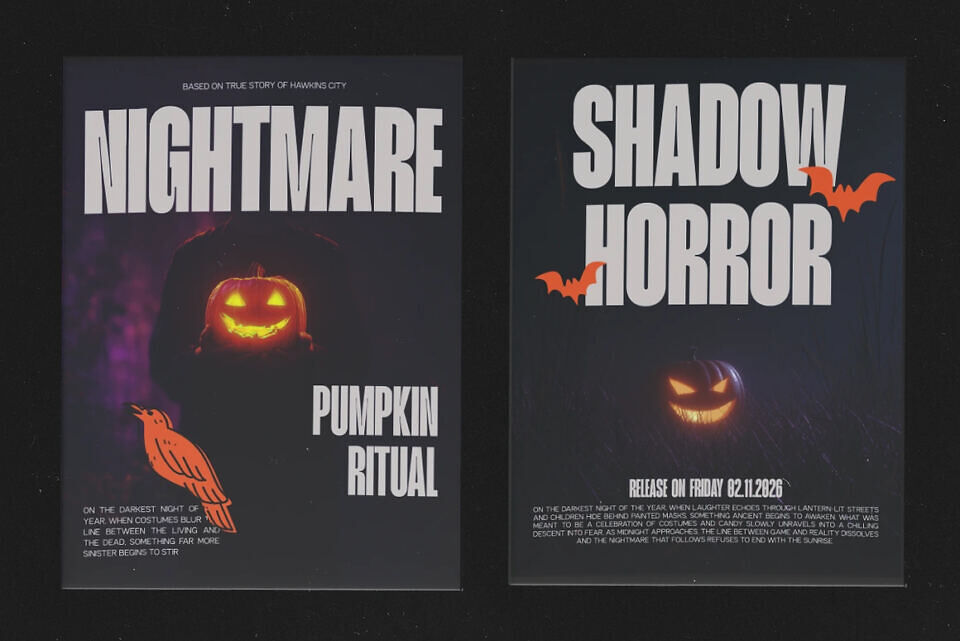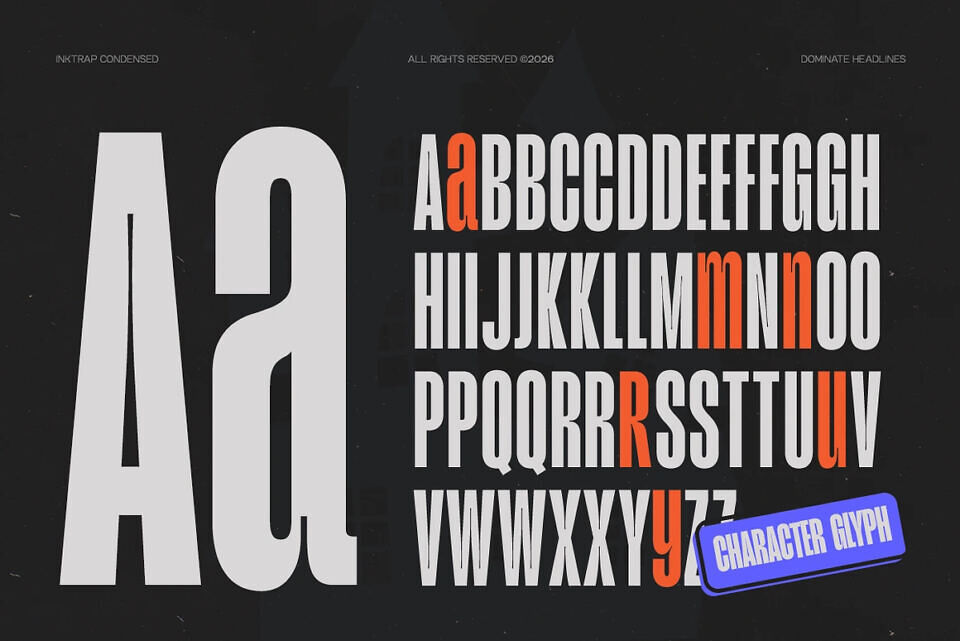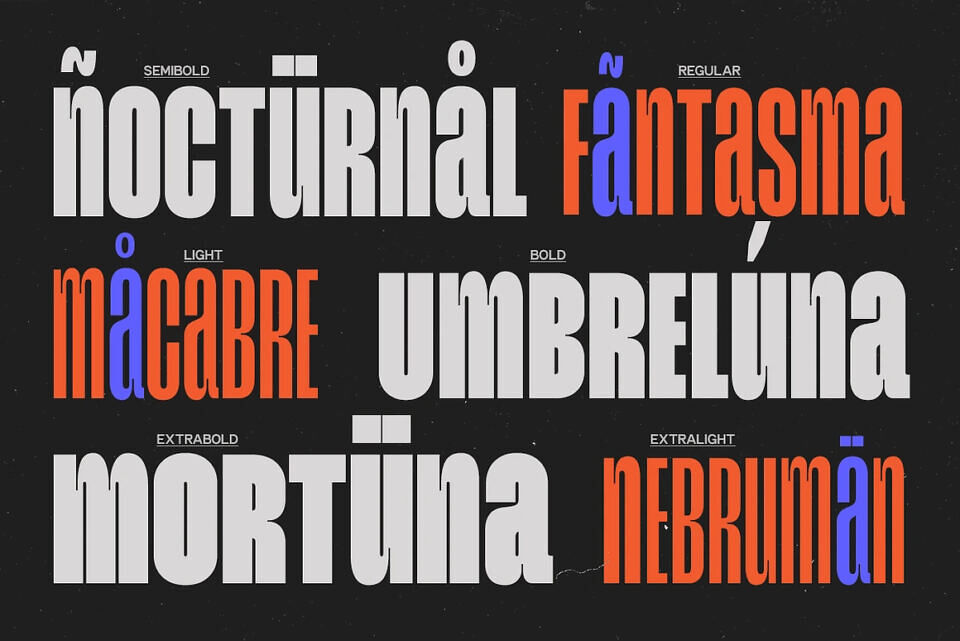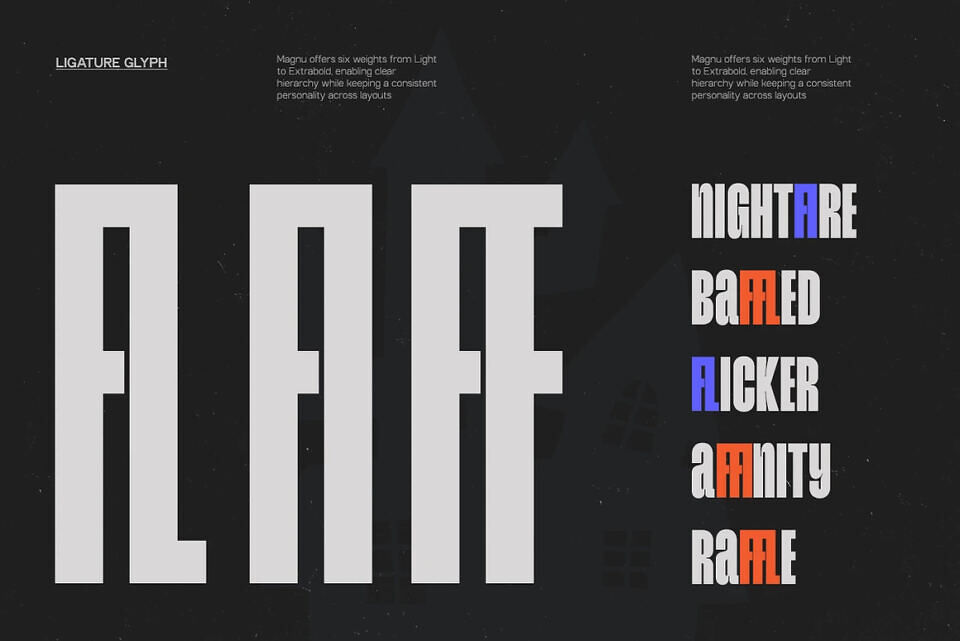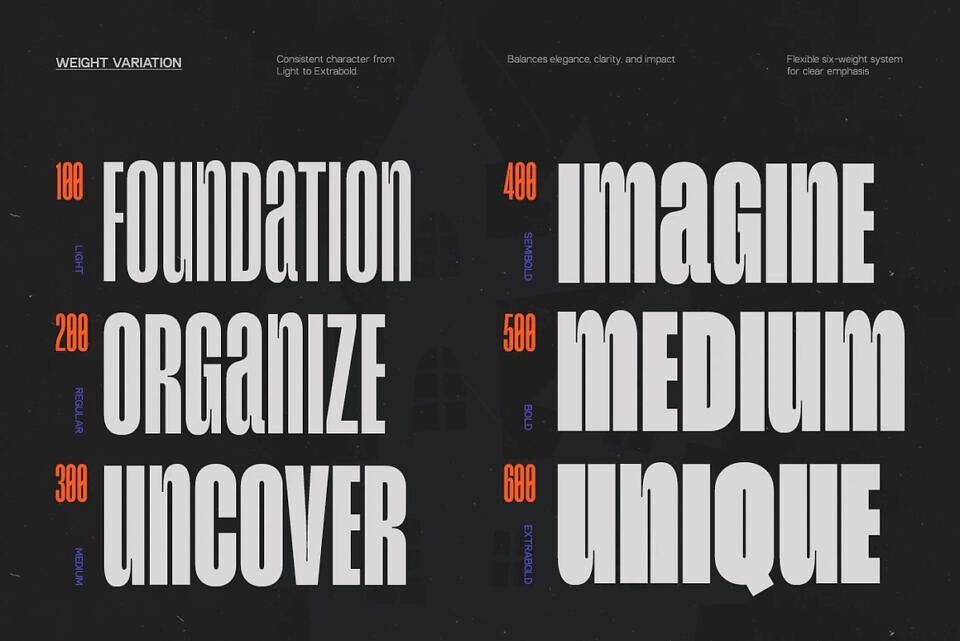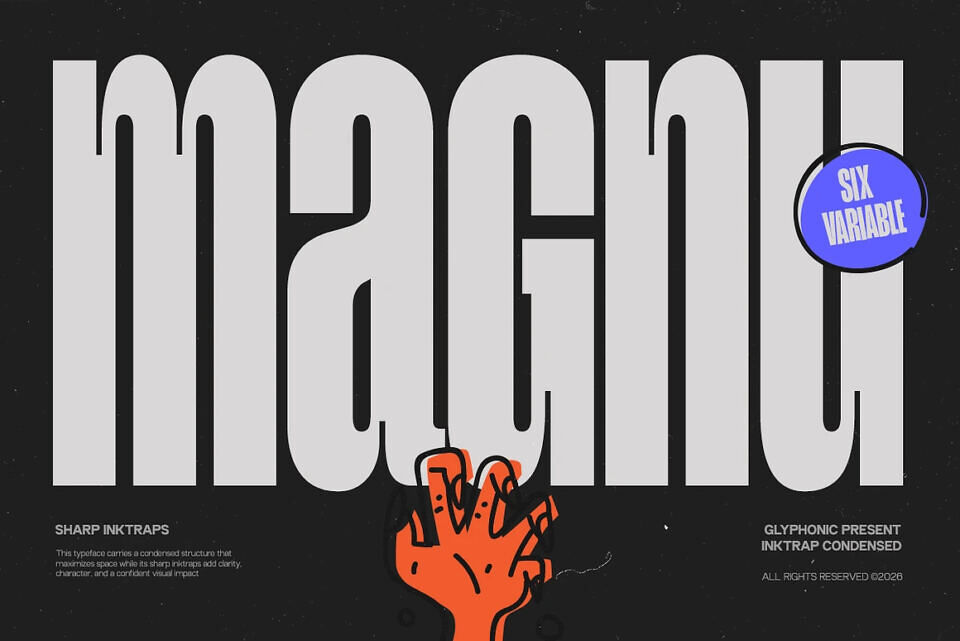
GC Magnu Font
GC Magnu is a modern sans serif typeface engineered with precision, functionality, and bold character. Featuring distinctive inktrap details and a condensed structure, it is designed to maximize readability while maintaining a strong and contemporary visual presence.
Built for high-performance typography, GC Magnu excels in tight spaces without sacrificing clarity. Its sharp geometry and carefully crafted inktraps enhance legibility across various sizes, making it ideal for branding, editorial layouts, user interfaces, packaging, and data-driven design systems.
GC Magnu blends technical precision with modern style, creating a balanced and confident tone that translates effortlessly to digital and print platforms. Its versatility shines in headlines, titles, and body text, bringing clarity, rhythm, and visual impact to any composition.